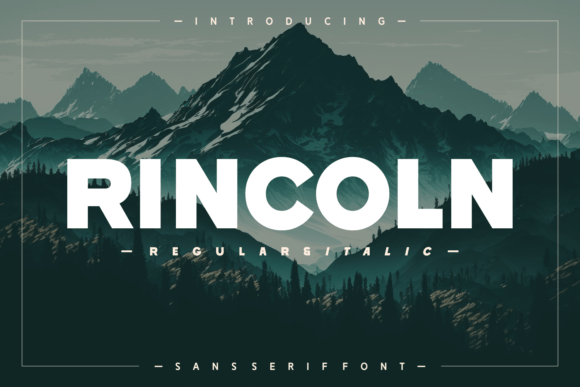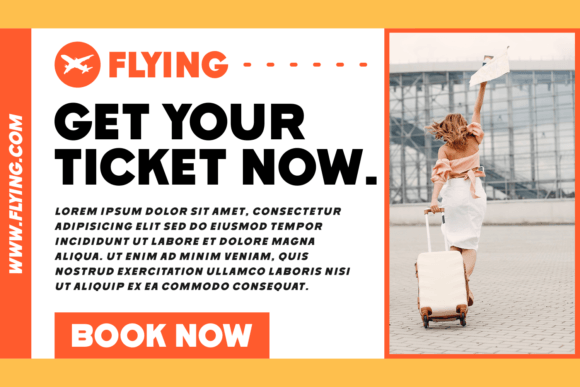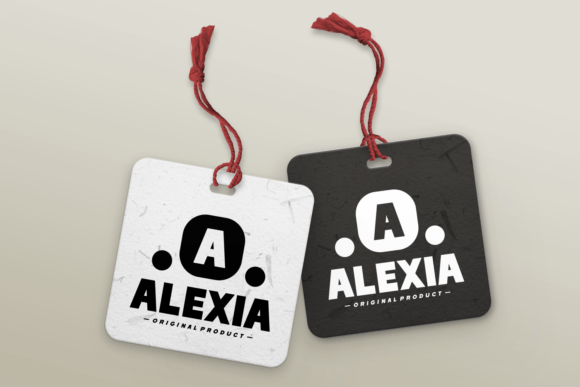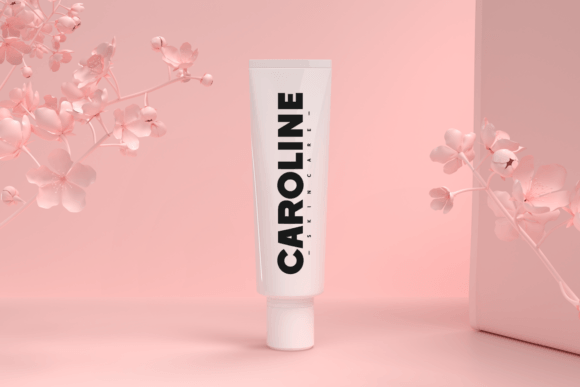
Rincoln Font: A Bold Sans Serif for Modern Logo Design & Branding
About the Rincoln Font
Crafted with precision, the Rincoln Font is ready to bring your ideas to life. Rincoln is a neat and bold sans serif font that exudes a sense of strength and confidence. Its clean, straight lines and geometric shapes create a sleek and modern appearance, while the consistent stroke weight and letter spacing make it easy to read at any size. The unique character shapes and subtle details give Rincoln a distinctive and memorable appearance, making it perfect for branding, advertising, and editorial design that requires a bold and impactful statement.
Rincoln’s strong, geometric forms make it ideal for headlines, logos, and short impactful text on posters or packaging. Its boldness commands attention, making it unsuitable for lengthy body copy or UI elements where readability at smaller sizes is crucial. Avoid using it for extensive text blocks; its weight might overwhelm the reader.
The font’s confident personality pairs well with supporting typefaces that offer contrast. Consider a clean serif like Garamond for a touch of classic elegance or a light, neutral sans-serif like Open Sans for improved readability in supporting text. For a more modern feel, geometric sans-serifs such as Futura could create a striking combination.
Rincoln’s overall aesthetic is modern and assertive. Brands seeking to project authority, innovation, or a sense of high-quality would find it a suitable choice. Its clean lines and geometric nature suggest precision and sophistication.
Rincoln Font Usage Examples
Rincoln Font Example